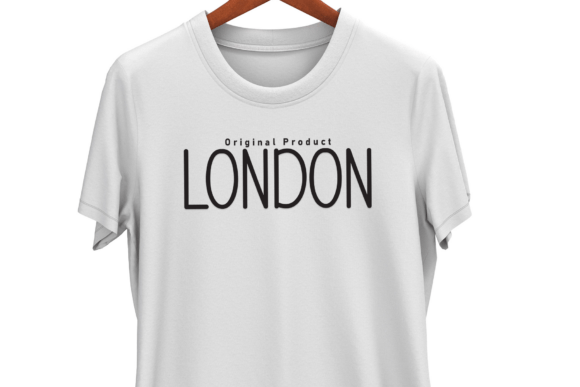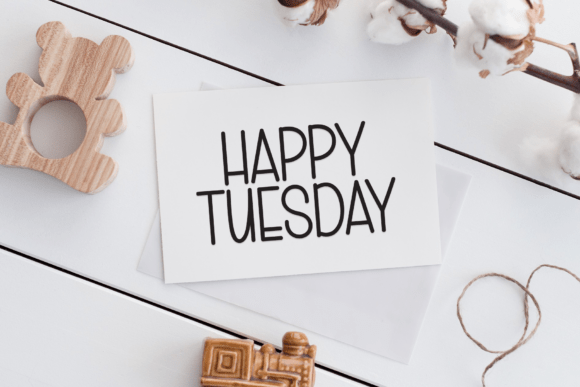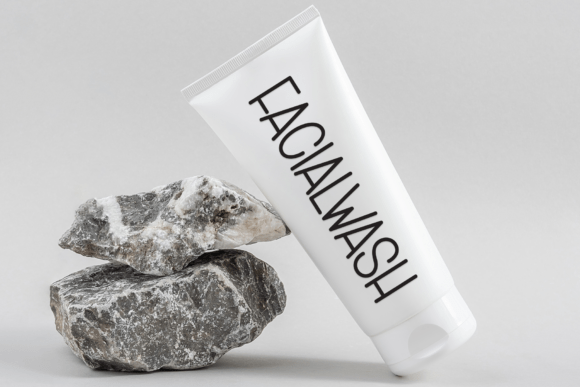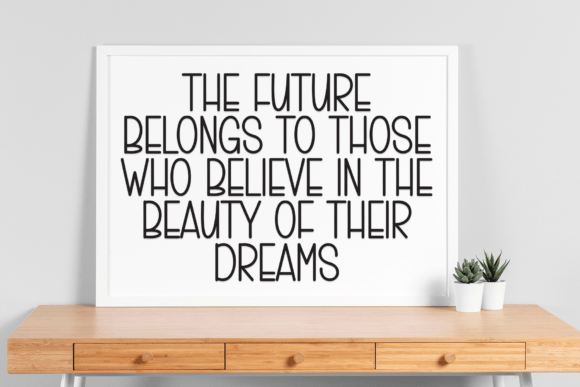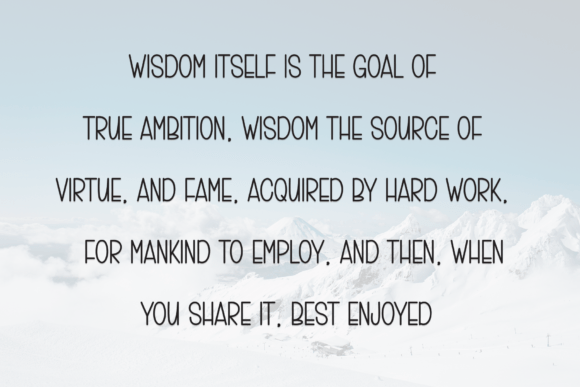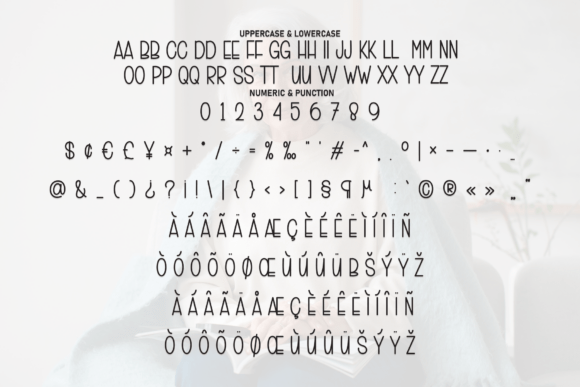
Introduction to Grandmother Font
Discover the captivating allure of an enchanting handcrafted display font – a harmonious fusion of charm and approachability.
This font exudes a delightful energy, making it the ideal choice for creating memorable wedding invitations, imaginative cards, and any designs seeking a splash of joy Harness its distinctive charm to convey a bewitching and delightful ambiance in your upcoming creative endeavors.
Key Features of Grandmother Font